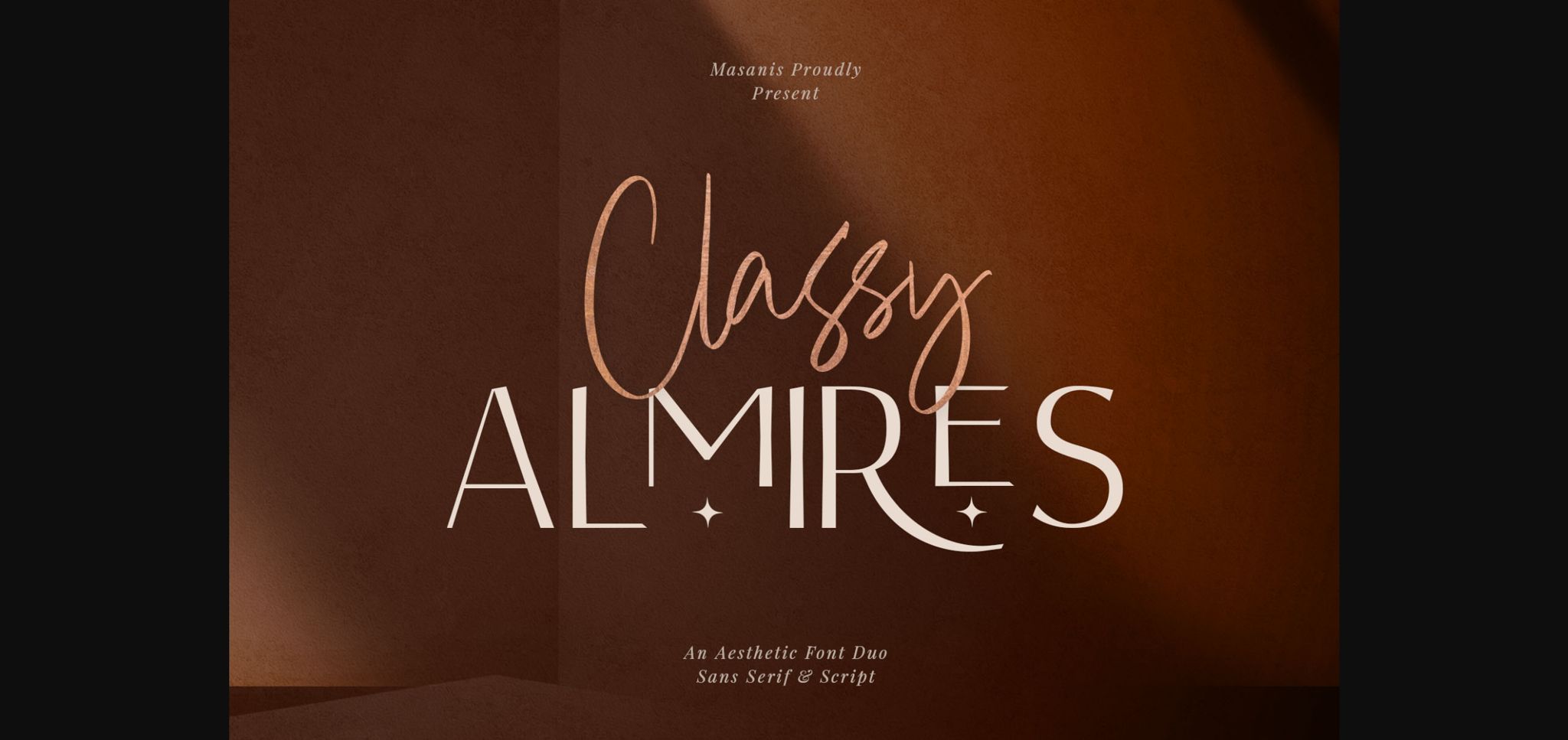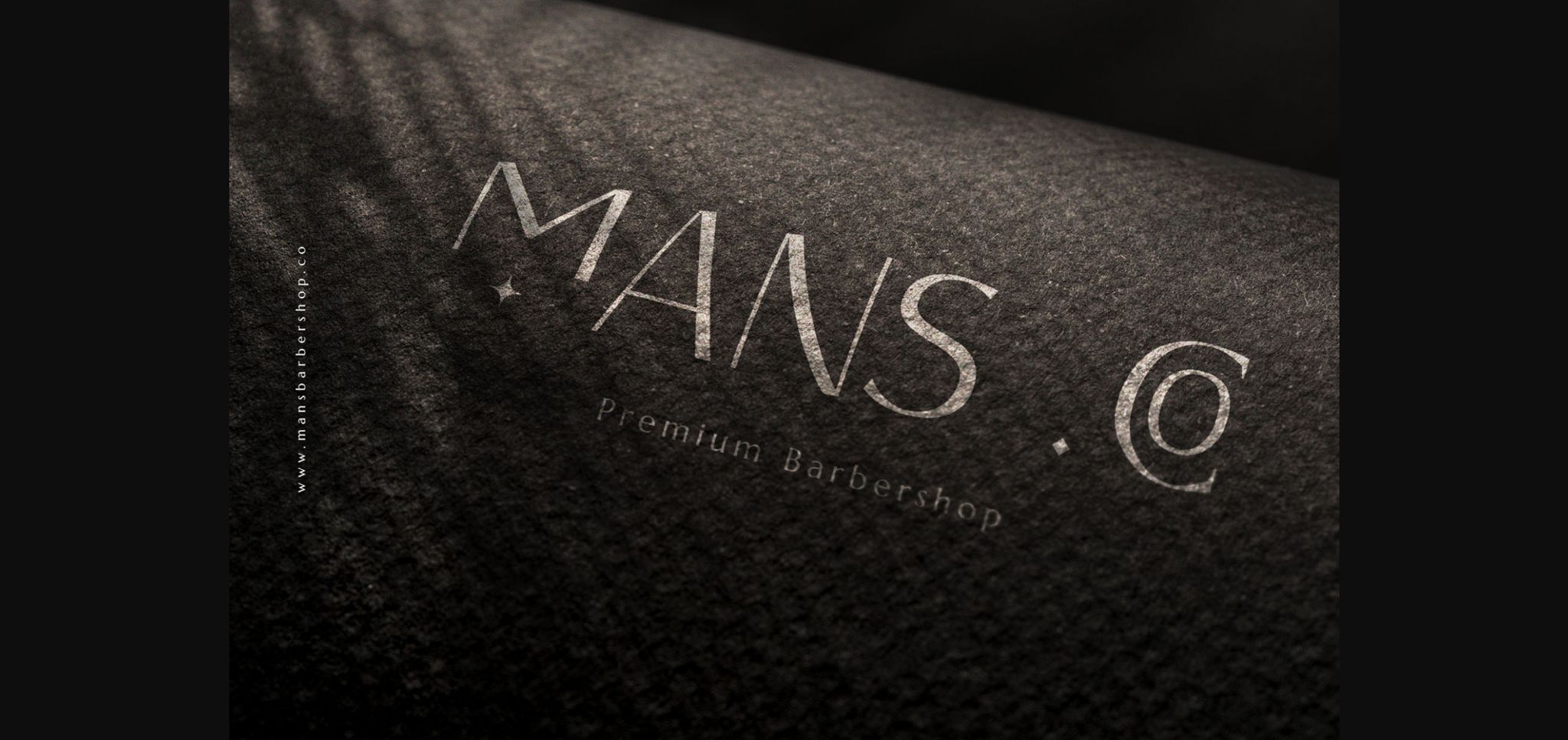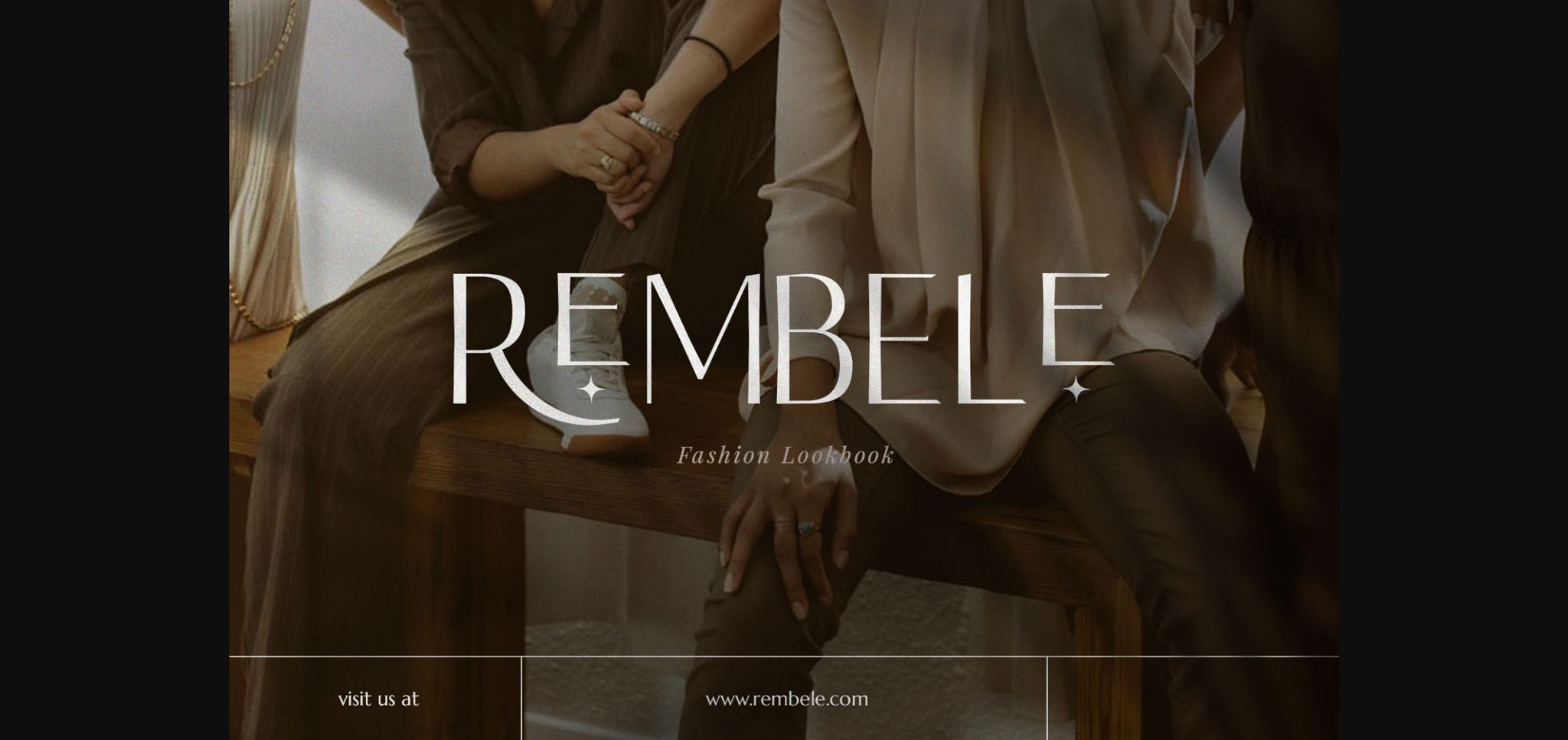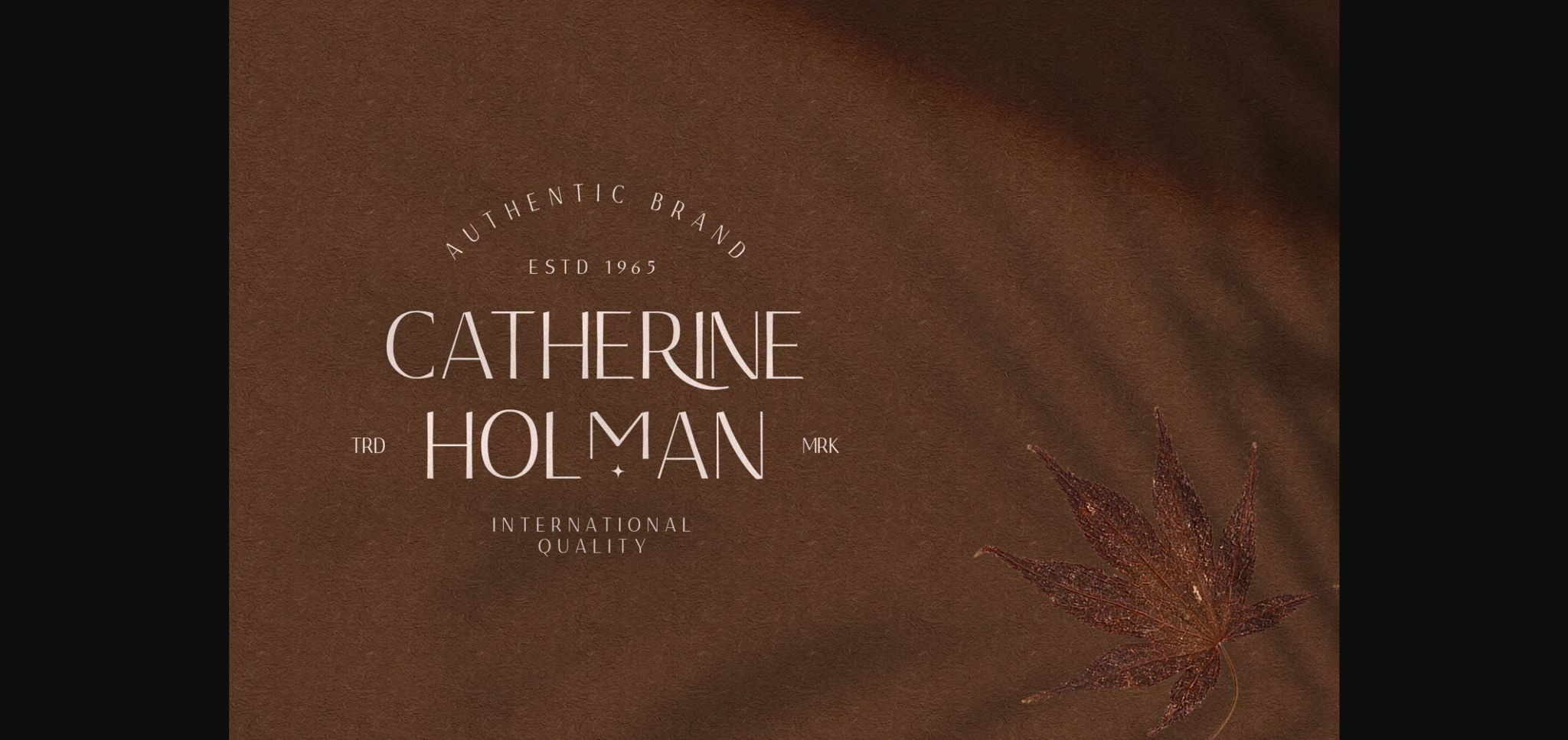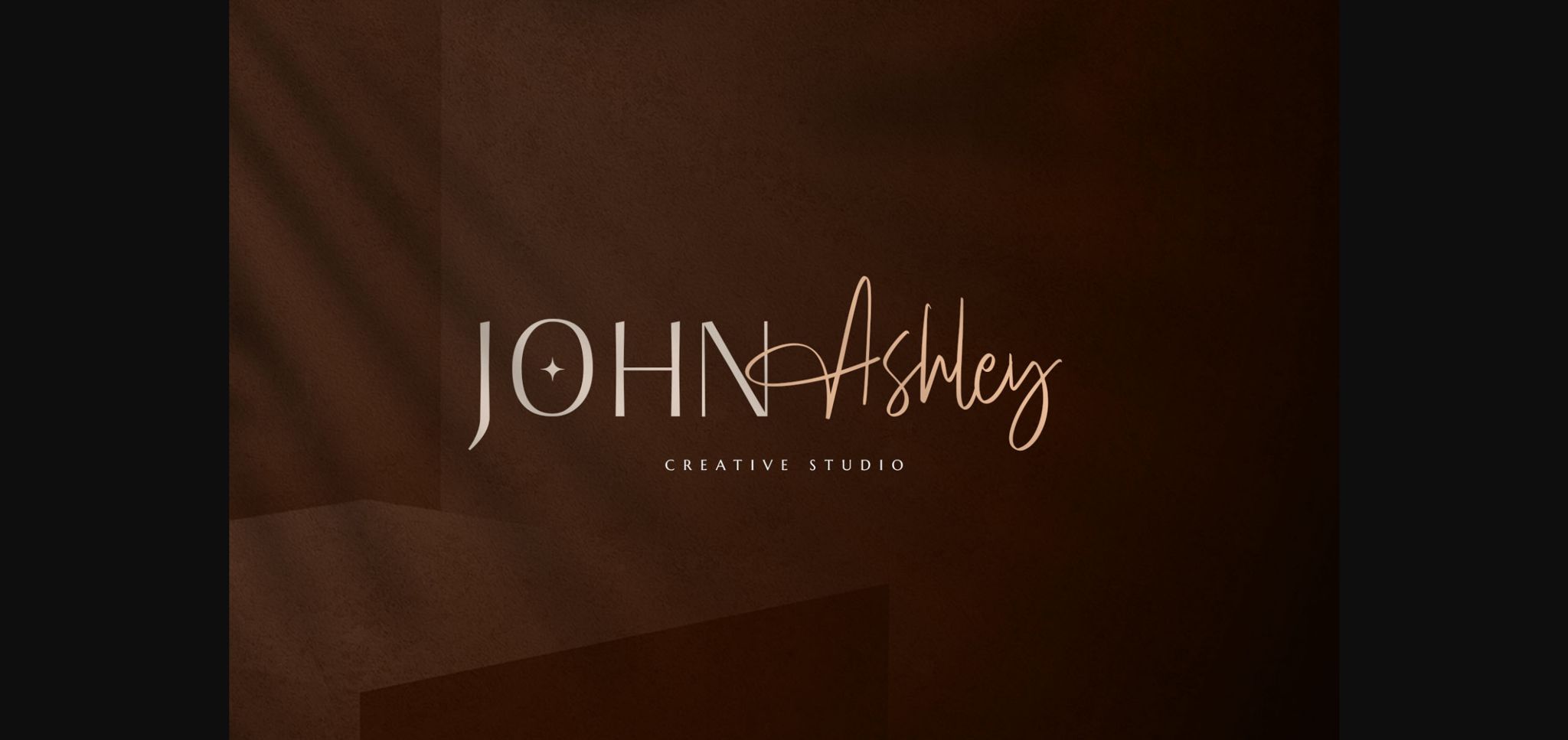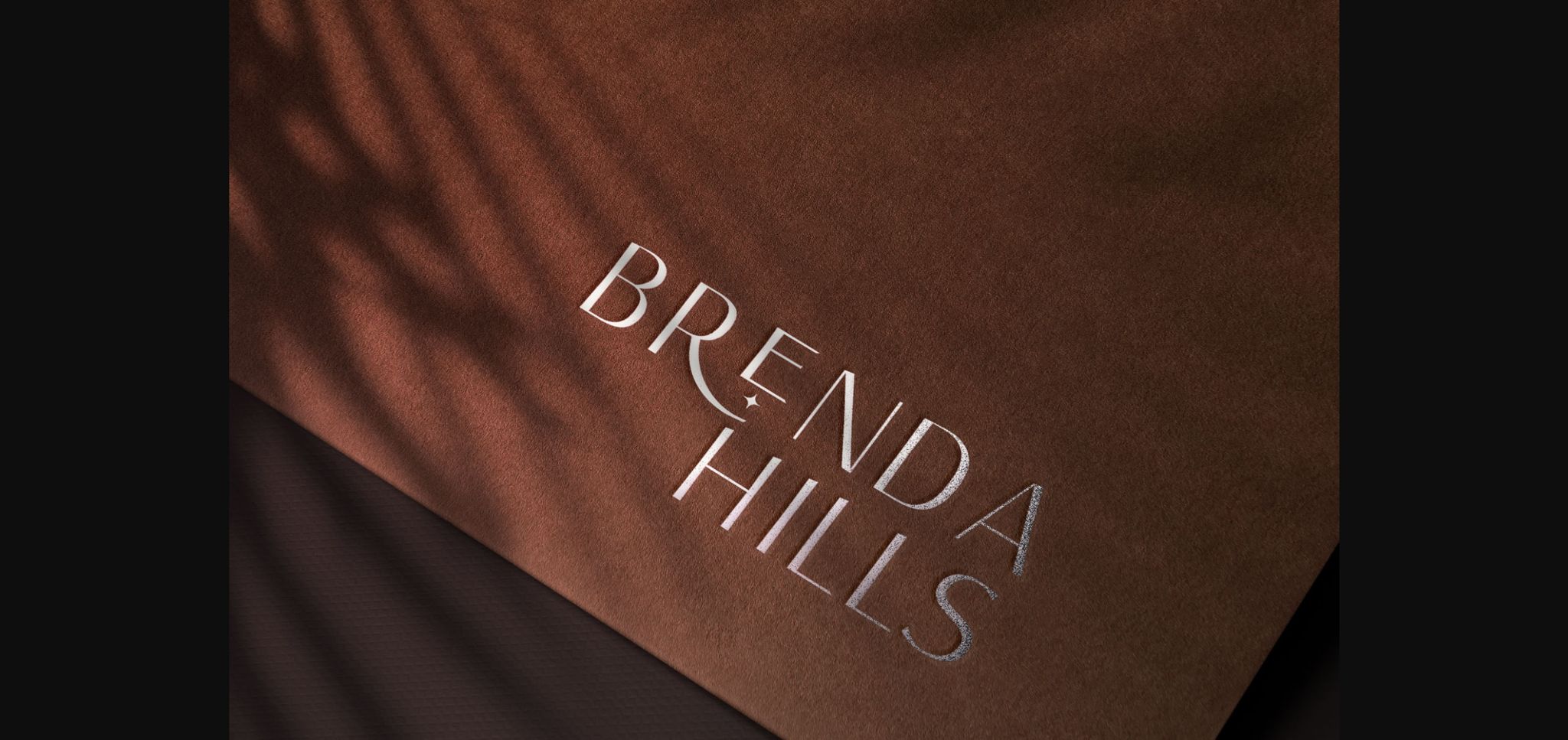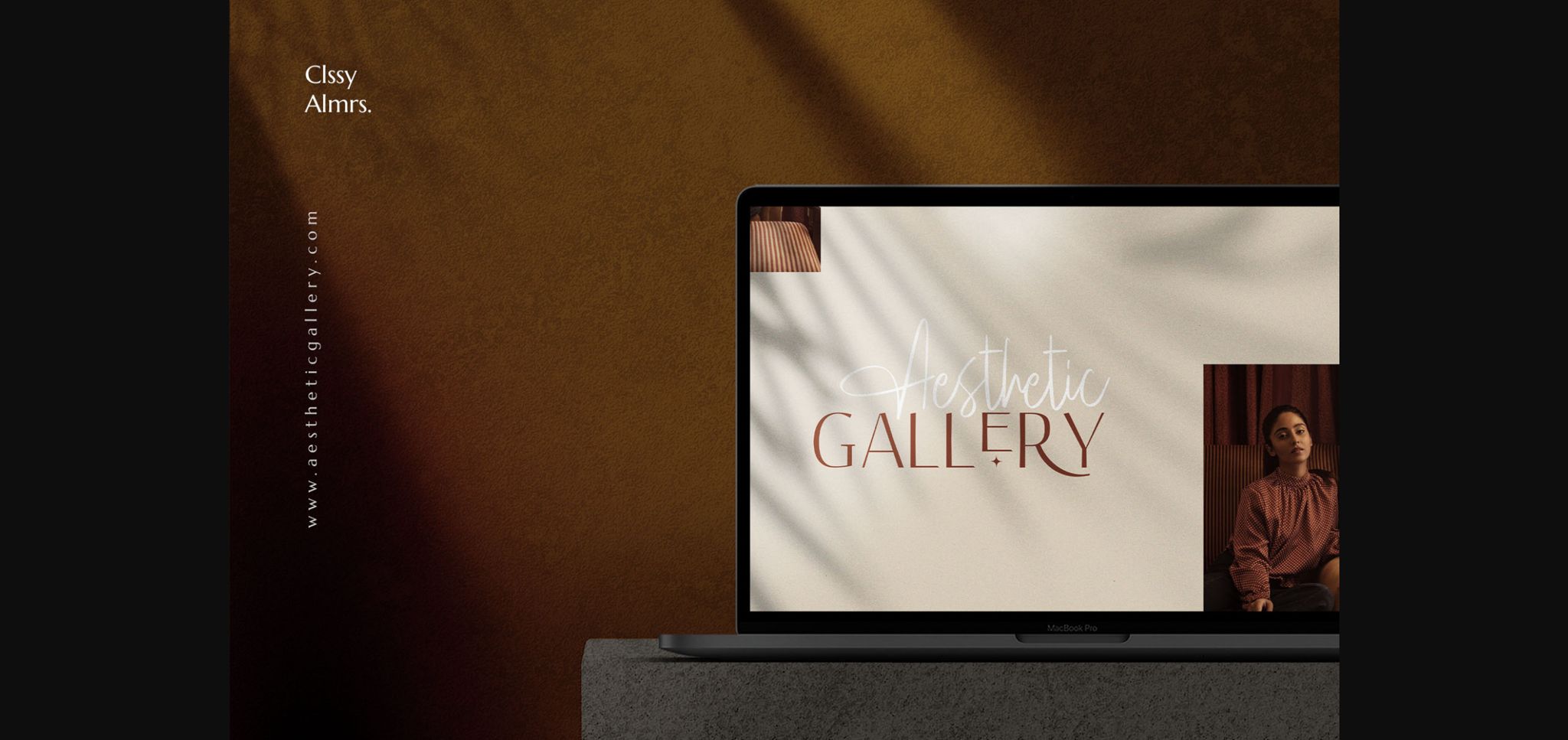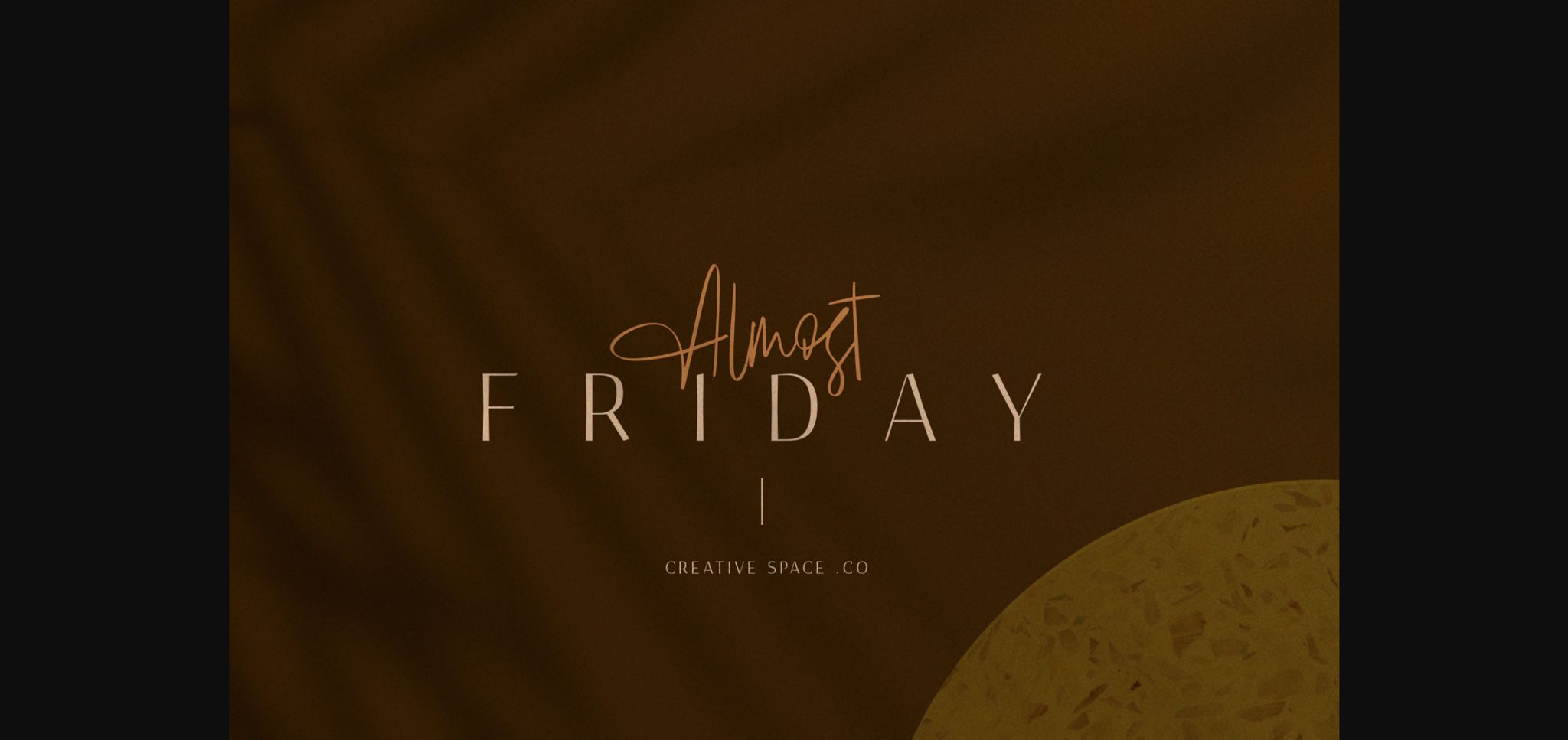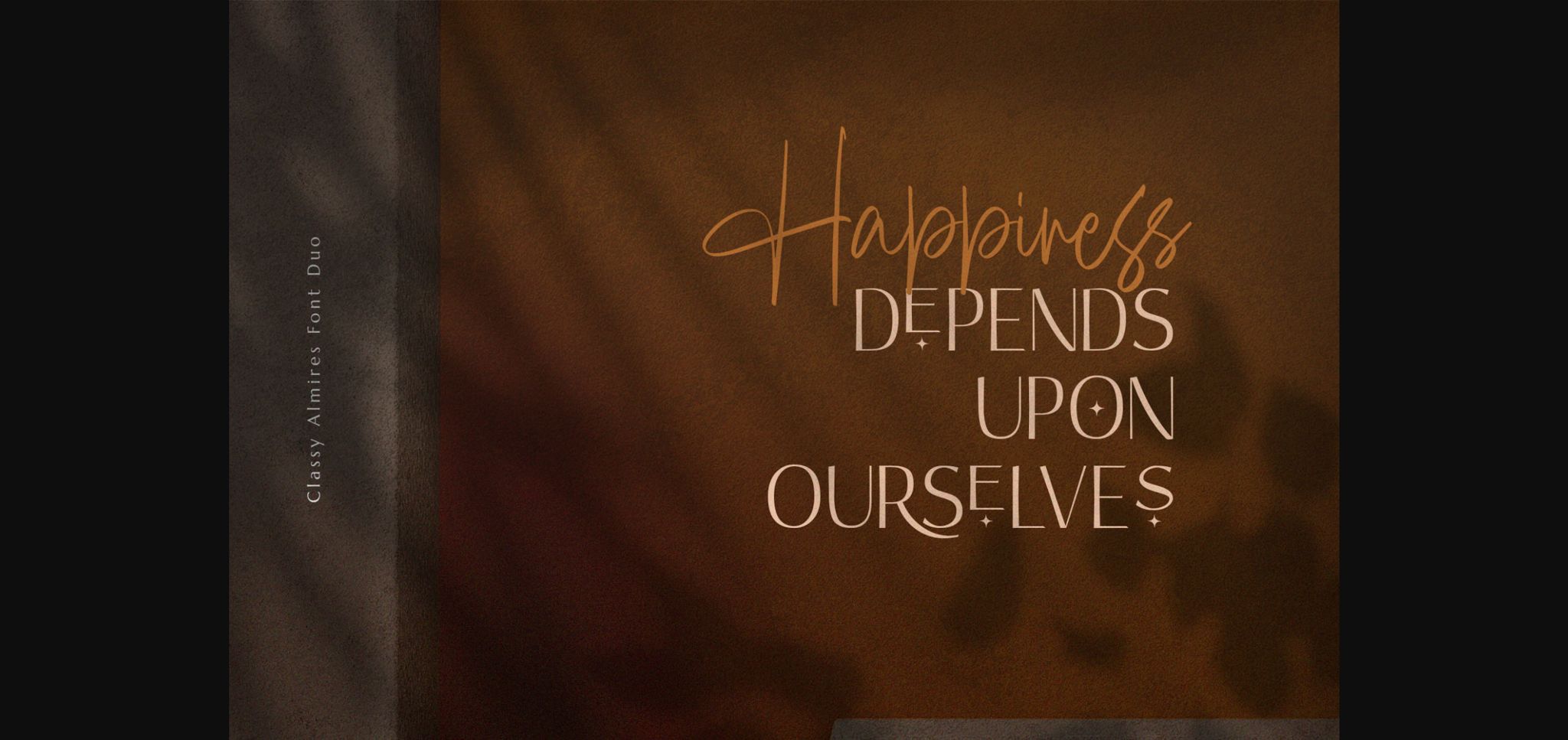
Classy Almires Font
About Classy Almires Font
Classy Almires is a stunning duo font (script and sans serif). Perfect for making bold and stylish statements – or adding a touch of class to your designs like for branding, logos, invitation, mastheads, and more. This font looks incredibly adept on a wide variety of contexts!